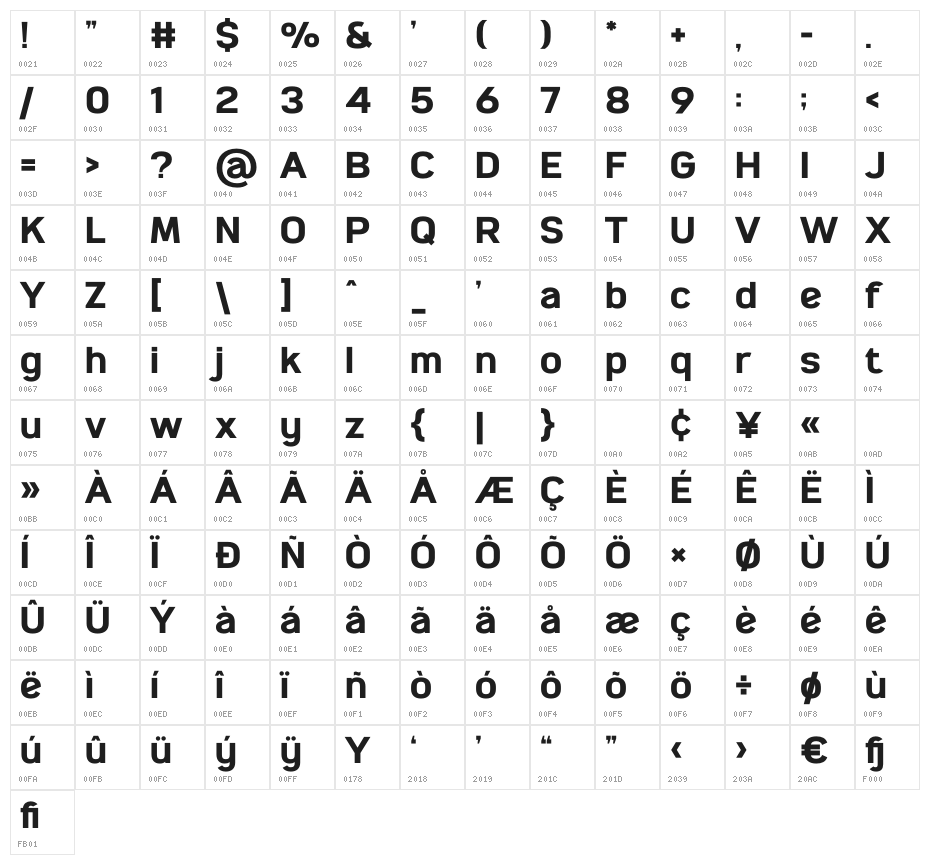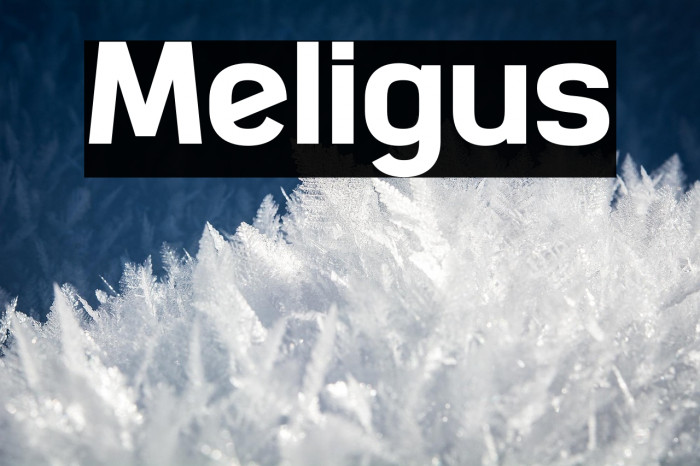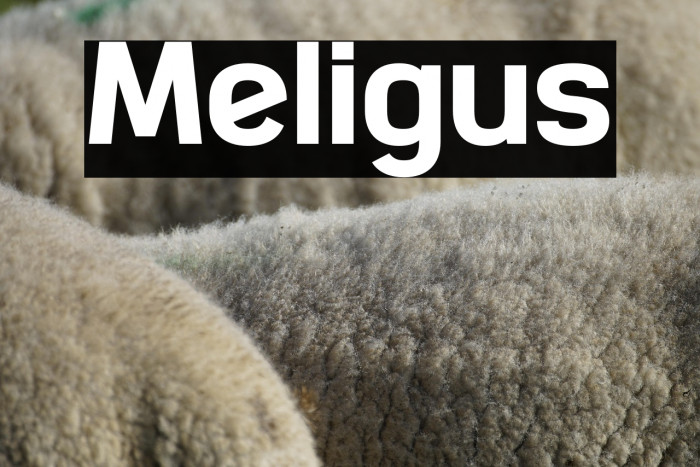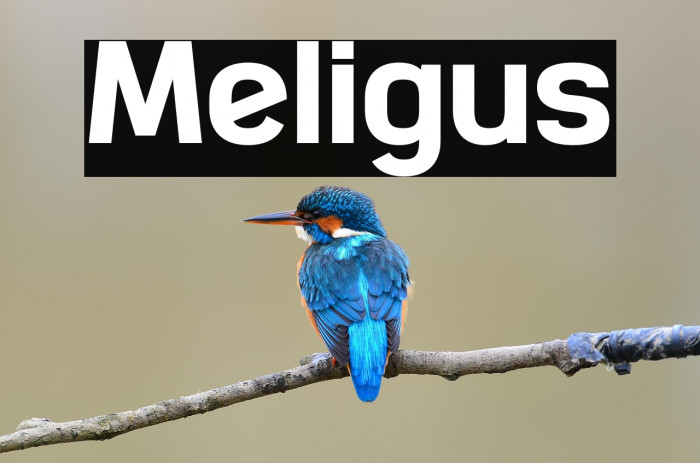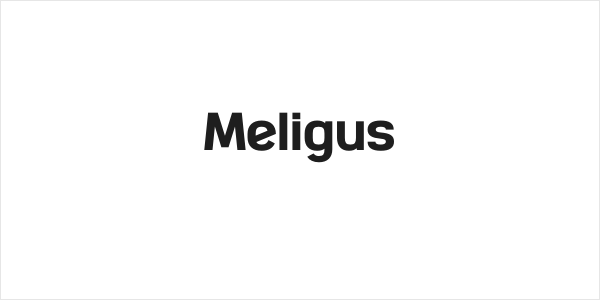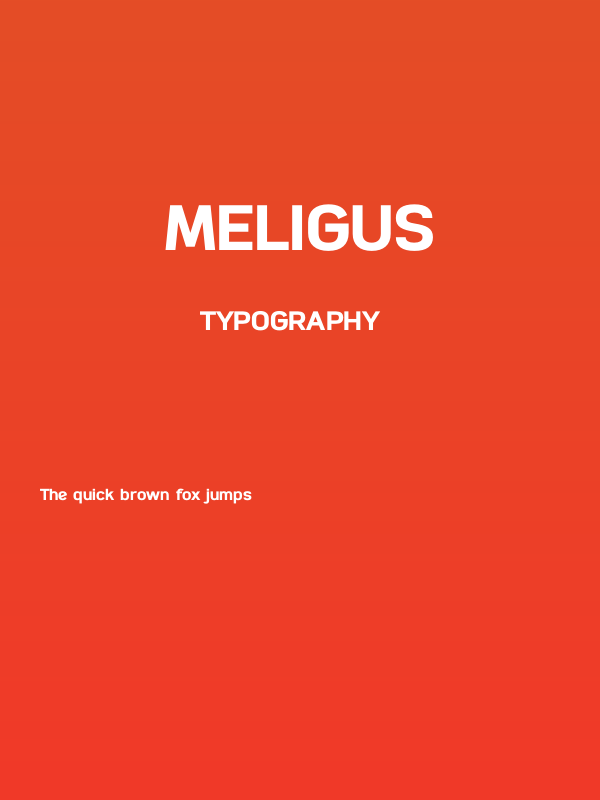
Meligus Font
Meligus Description
This font exhibits a clean and modern sans-serif style, characterized by its bold and uniform stroke width. The uppercase and lowercase letters maintain a consistent height and width, providing a balanced and harmonious appearance. The numerals and special characters are designed to match the overall aesthetic, ensuring readability and clarity. The font's simplicity and straightforward design make it versatile for various applications, from digital to print media.
| Use Case | Headlines, Logos, Digital interfaces |
| Proposed Projects | Ideal for branding, advertising, headlines, and digital interfaces where clarity and impact are essential. |